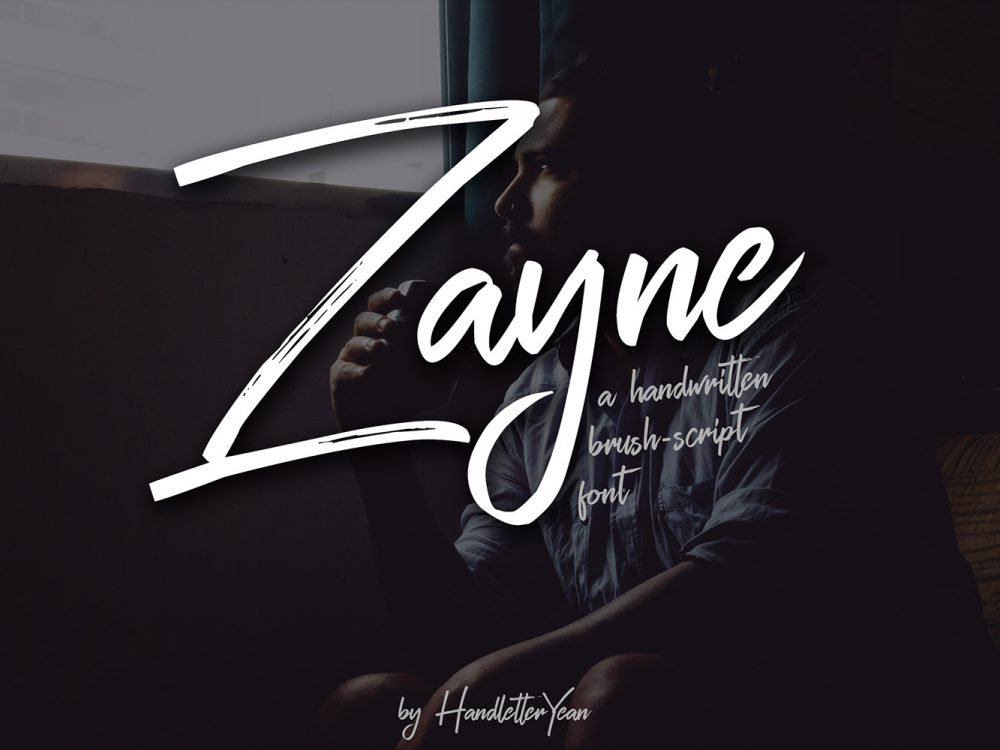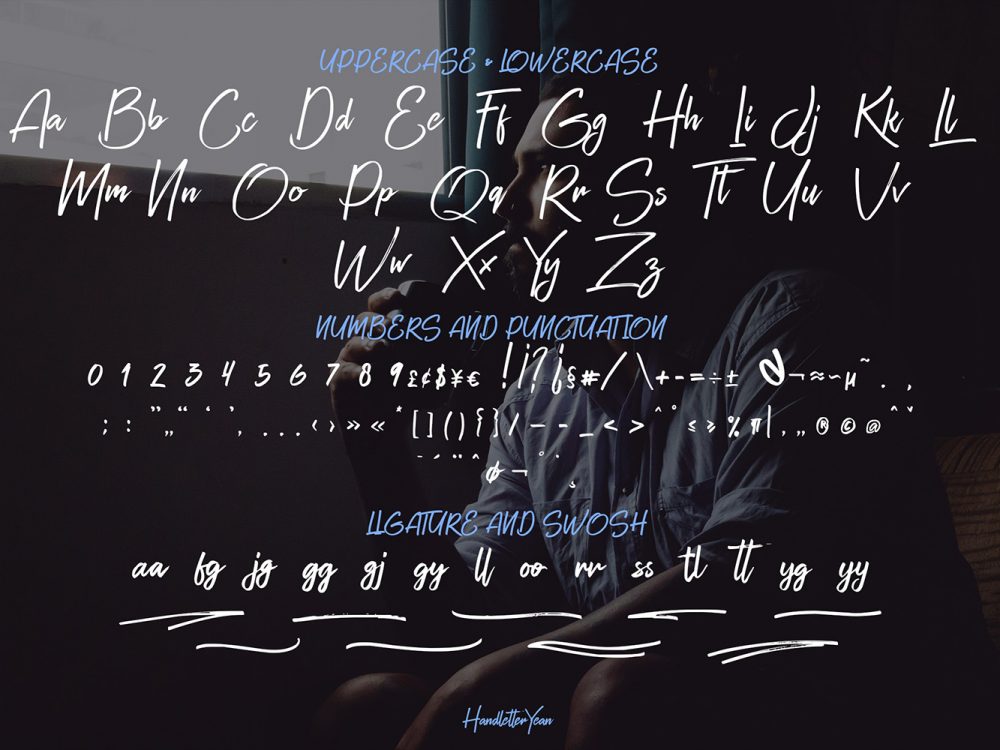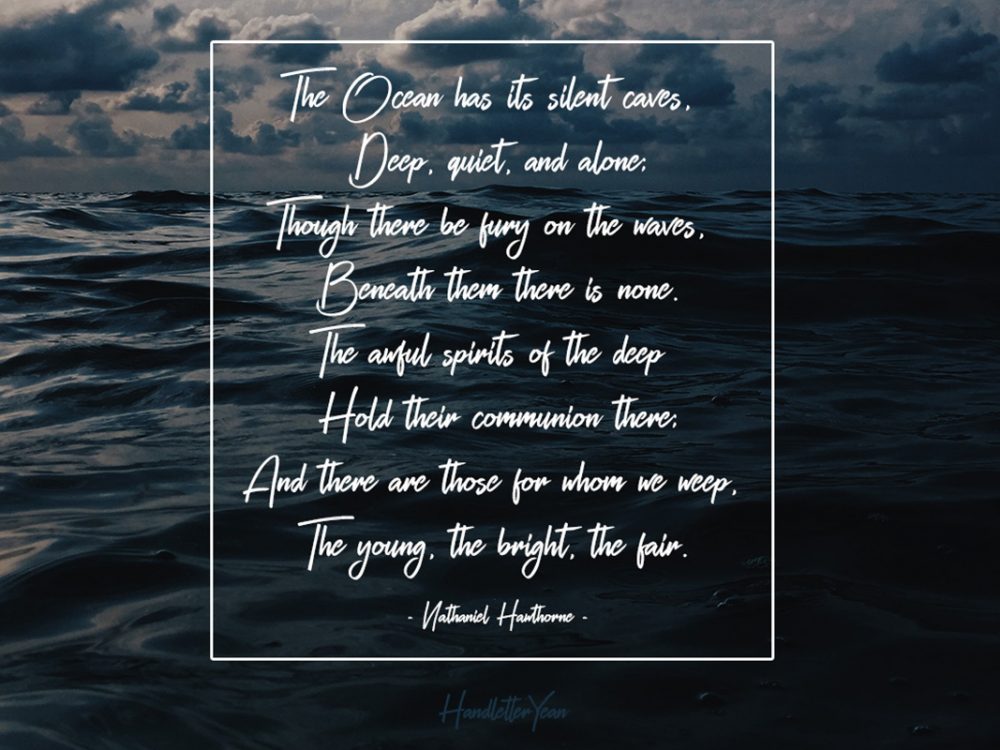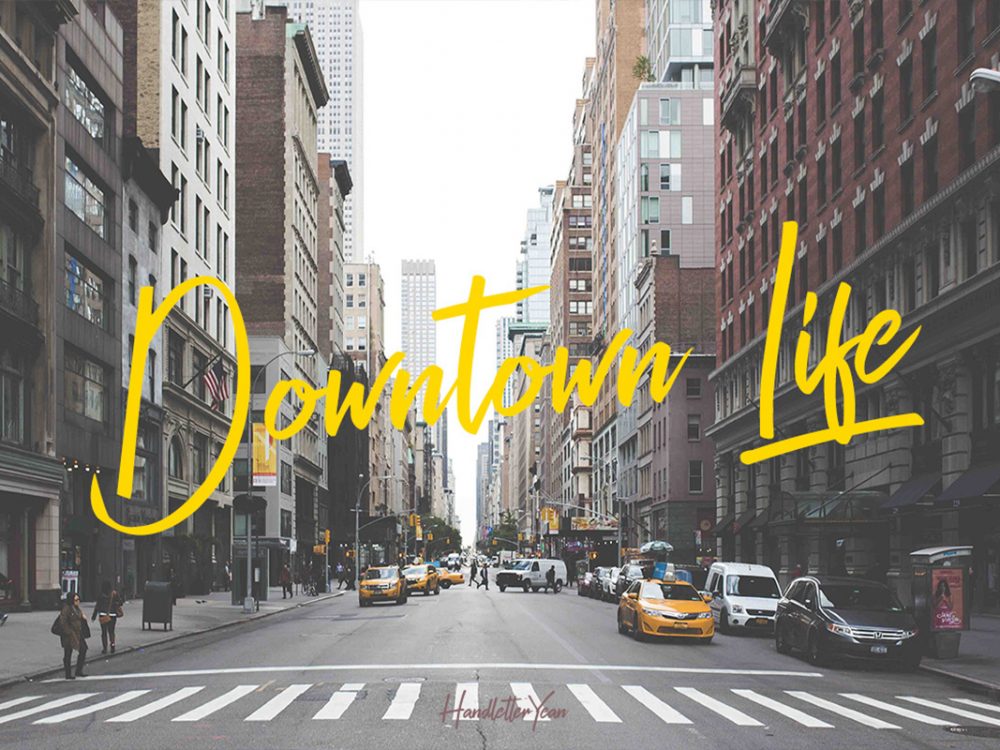
Zayne Free Font
Zayne Free Font is an interesting script font that mimics writing with a brush and features a modern calligraphic style. This font is a fresh, urban, and unique handwritten script font that includes ligatures and washes and is very suitable for creating various projects that require a scripted handwritten font. Use this font to create memorable romantic posters, wedding invitations, greeting cards, branding, flyers, t-shirt and pillow prints, and more. Improve your professional level using this font. If you like it don’t forget to check out the full version.